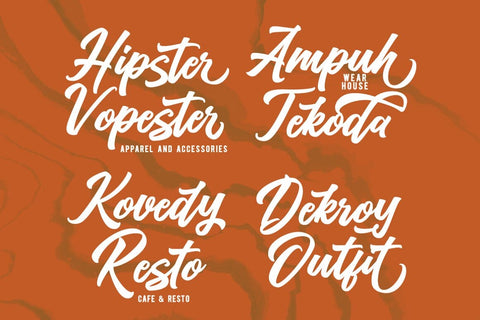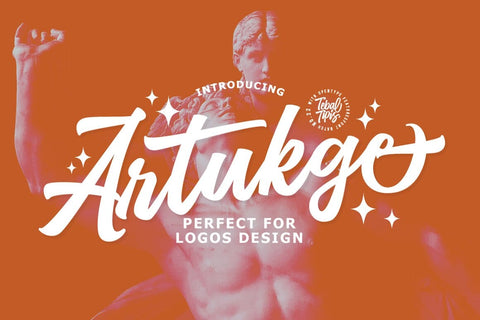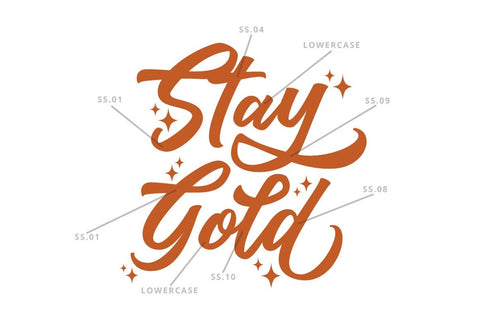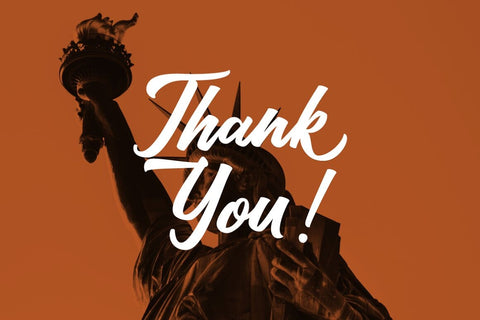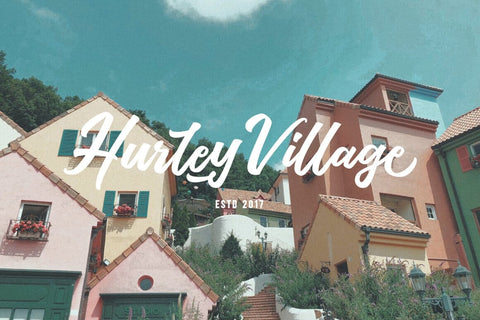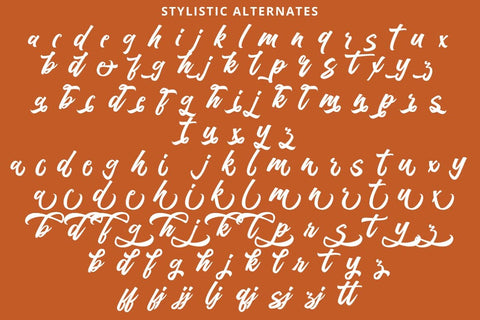
Artukge Script Typeface
Artukge Script is a typeface with personality. You can use it as a logo, badge, insignia, packaging, headline, poster, etc The alternative characters in this font were divided into several OpenType features such as Stylistic Alternates, Stylistic Sets, and Ligature. The OpenType features can be accessed by using OpenType program such as Adobe Illustrator, Adobe Photoshop, and Adobe InDesign.